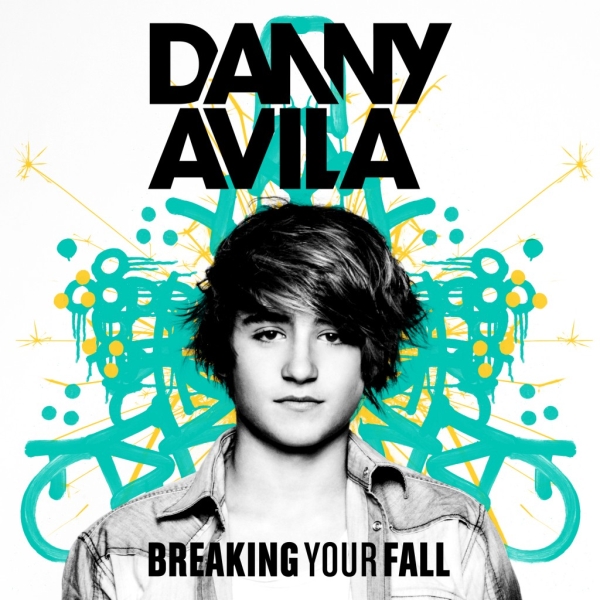
Breaking Your Fall Font
ElectronicBreaking Your Fall is an album by the Swedish singer and songwriter Seinabo Sey, released in 2021. It features a blend of soul, pop, and R&B styles, showcasing Sey's powerful vocals and introspective lyrics.
The album title ''Breaking Your Fall'' uses two variants of Chalet Comprimé, a condensed sans serif from House Industries. The part "Breaking Fall'' is set in Chalet Comprimé Hong Kong 1960 and "Your" is set in Chalet Comprimé Cologne 1960. The artist's logo was likely created using a geometric sans serif font named ITC Avant Garde Gothic Bold.